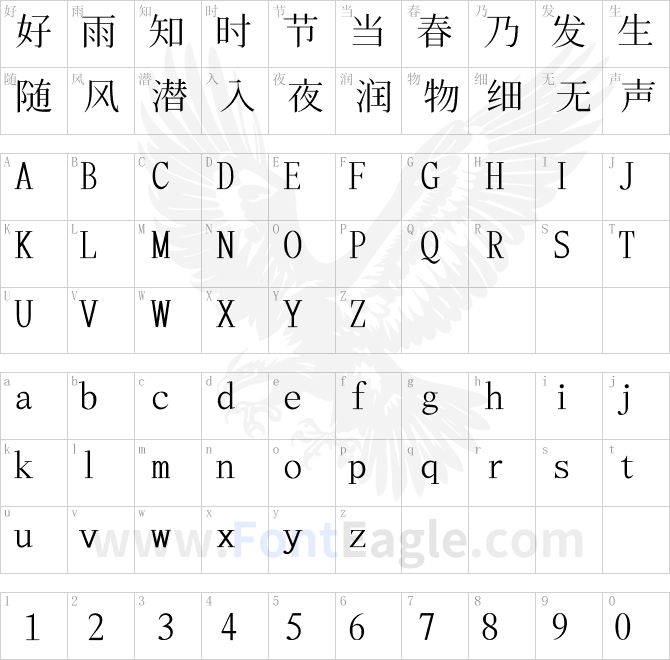
花園明朝HanaMinA is a great font, widely used in graphic design, single-page menu design, poster design and other fields, and is deeply loved by designers.花園明朝HanaMinA download.